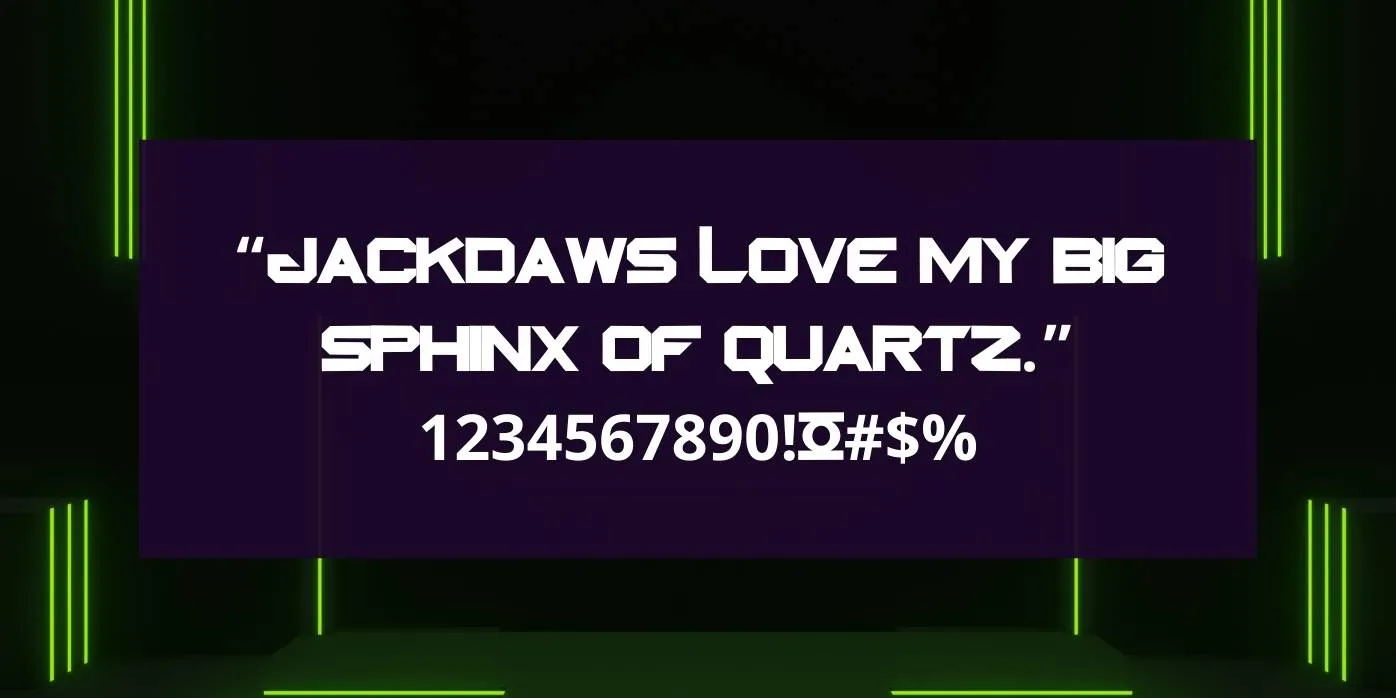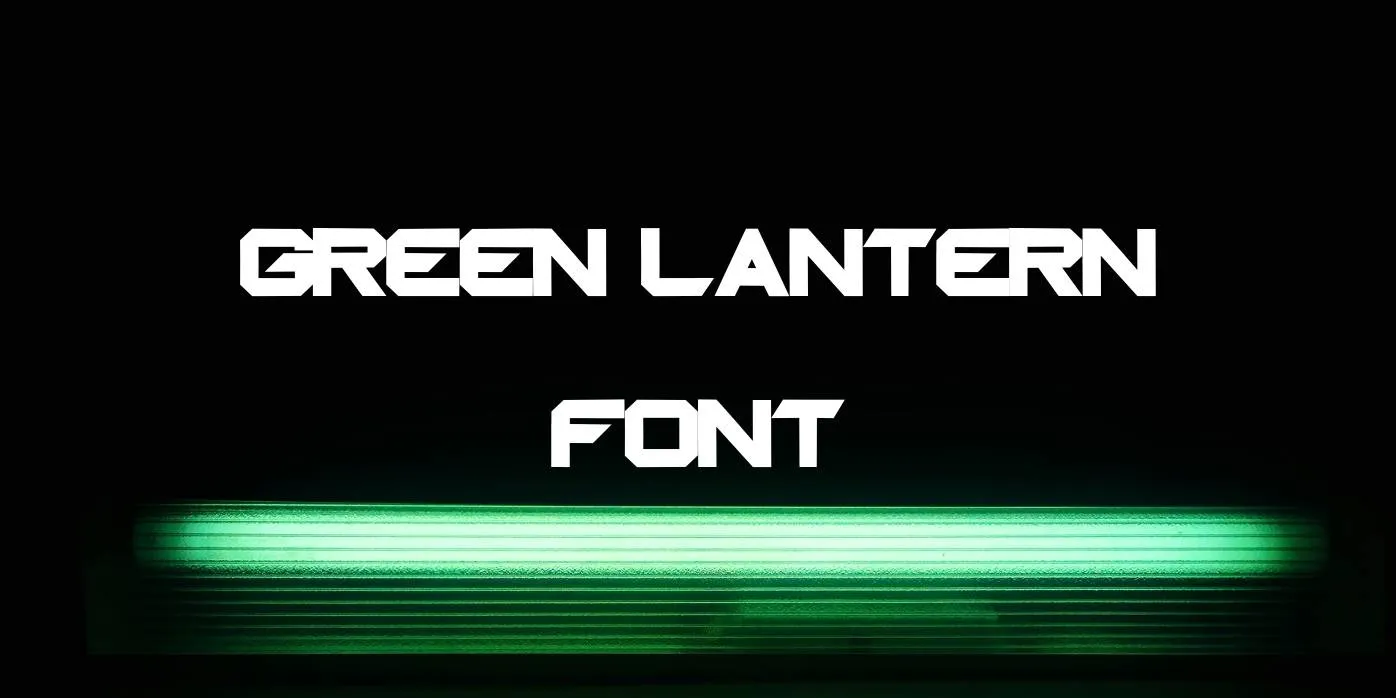
Green Lantern Font
The Green Lantern font is one of the most popular fonts used by graphic designers and web developers. The font has a unique design that makes it easy to read and stand out from other fonts. The Green Lantern Typeface was created by comic book artist Dave Gibbons. The font is a display font that is used for headlines and titles.
The font is available in two styles, normal and italic. The Green Lantern Typeface is available in four different weights, light, regular, medium, and bold. You can also apply a great simple and useful rockwell font that is available on an over-web portal and is ready to download. The typeface was designed to be used for small text.
The font includes a wide variety of characters, including upper and lowercase letters, numbers, and punctuation marks. The Green Lantern Typeface is available in both Latin and Cyrillic character sets.